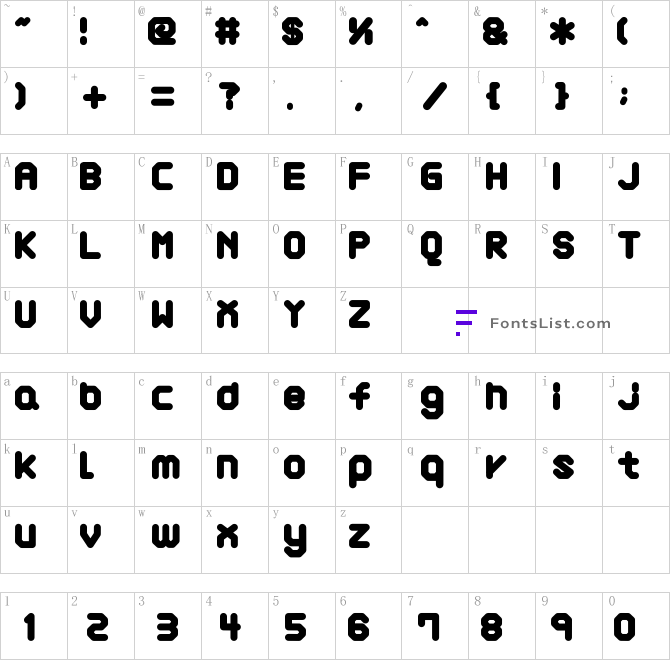
- Font Name:atarax-p
atarax-p.ttf is a very beautiful artistic font, atarax-p.ttf is widely used in the design and printing of various books and pictures,atarax-p.ttf has a strong visual impact,atarax-p.ttf is a commonly used font in newspapers, magazines and books, and is used in posters, e-commerce Poster design, store design, logo design, font design and other fields.atarax-p.